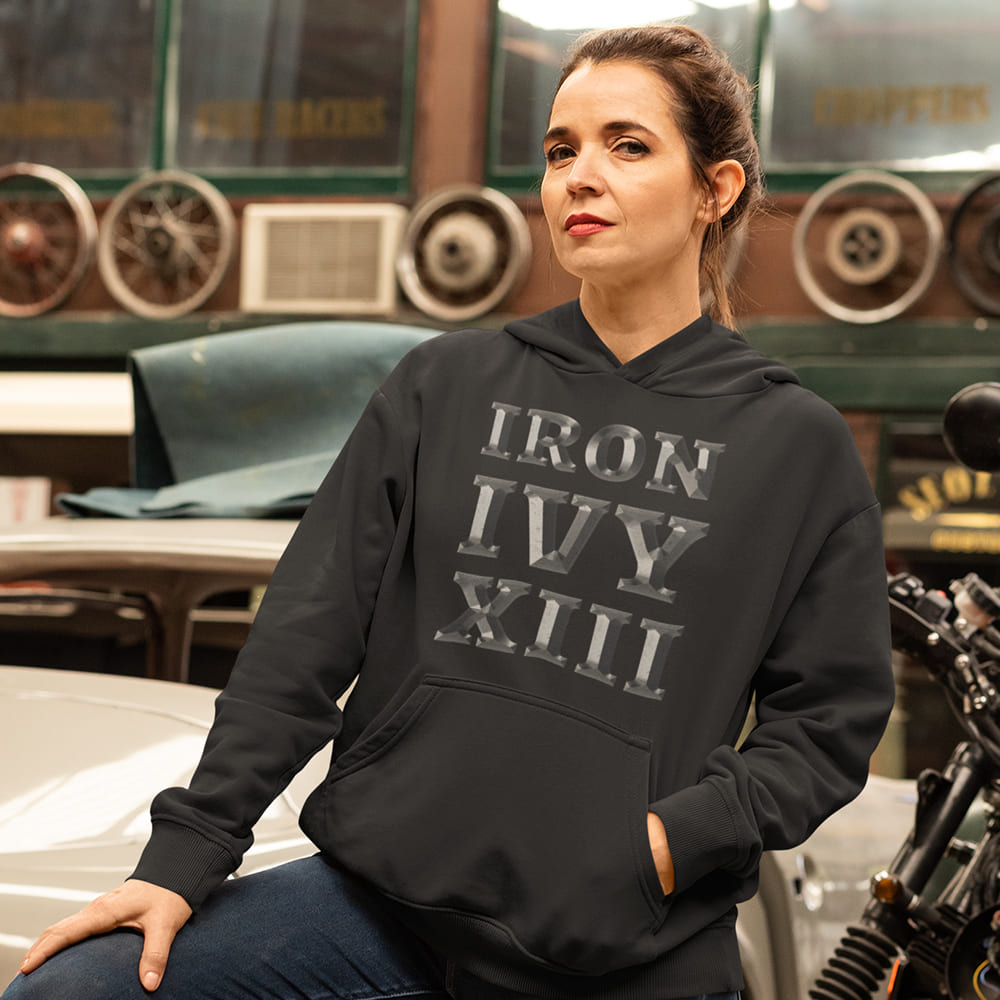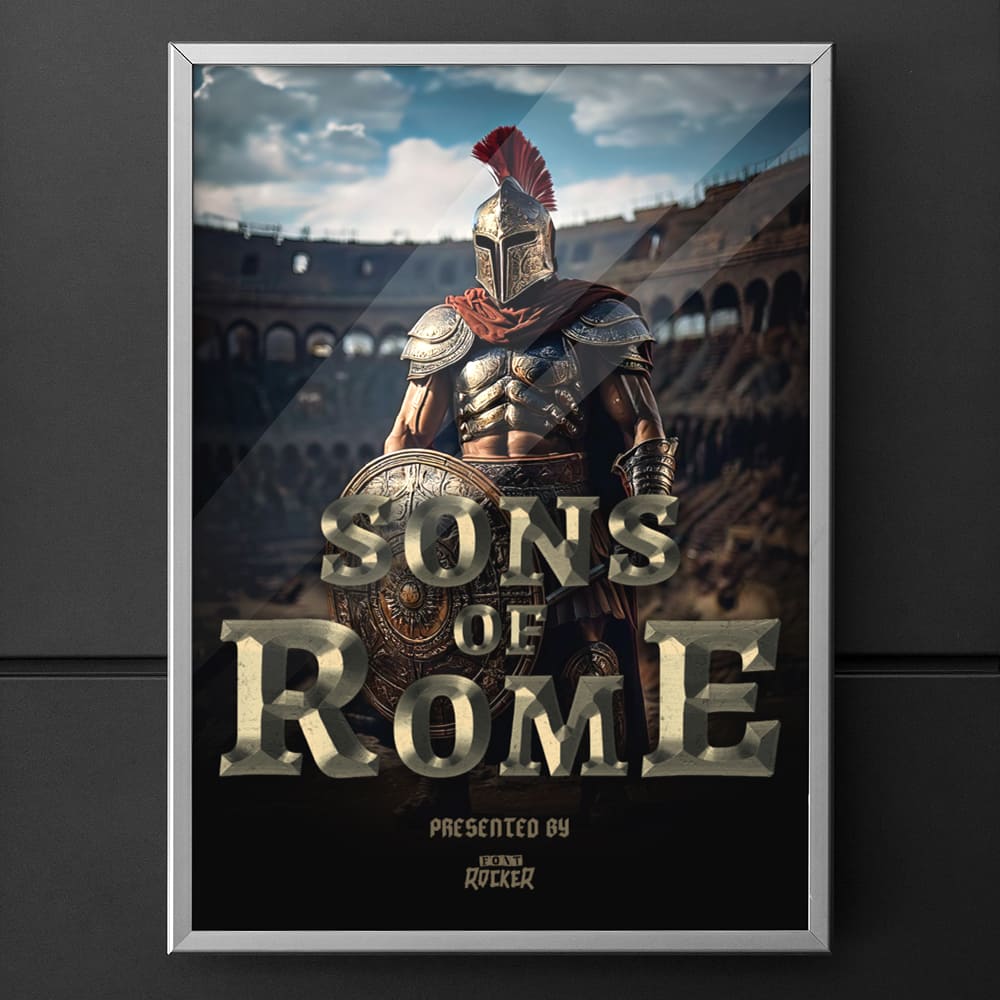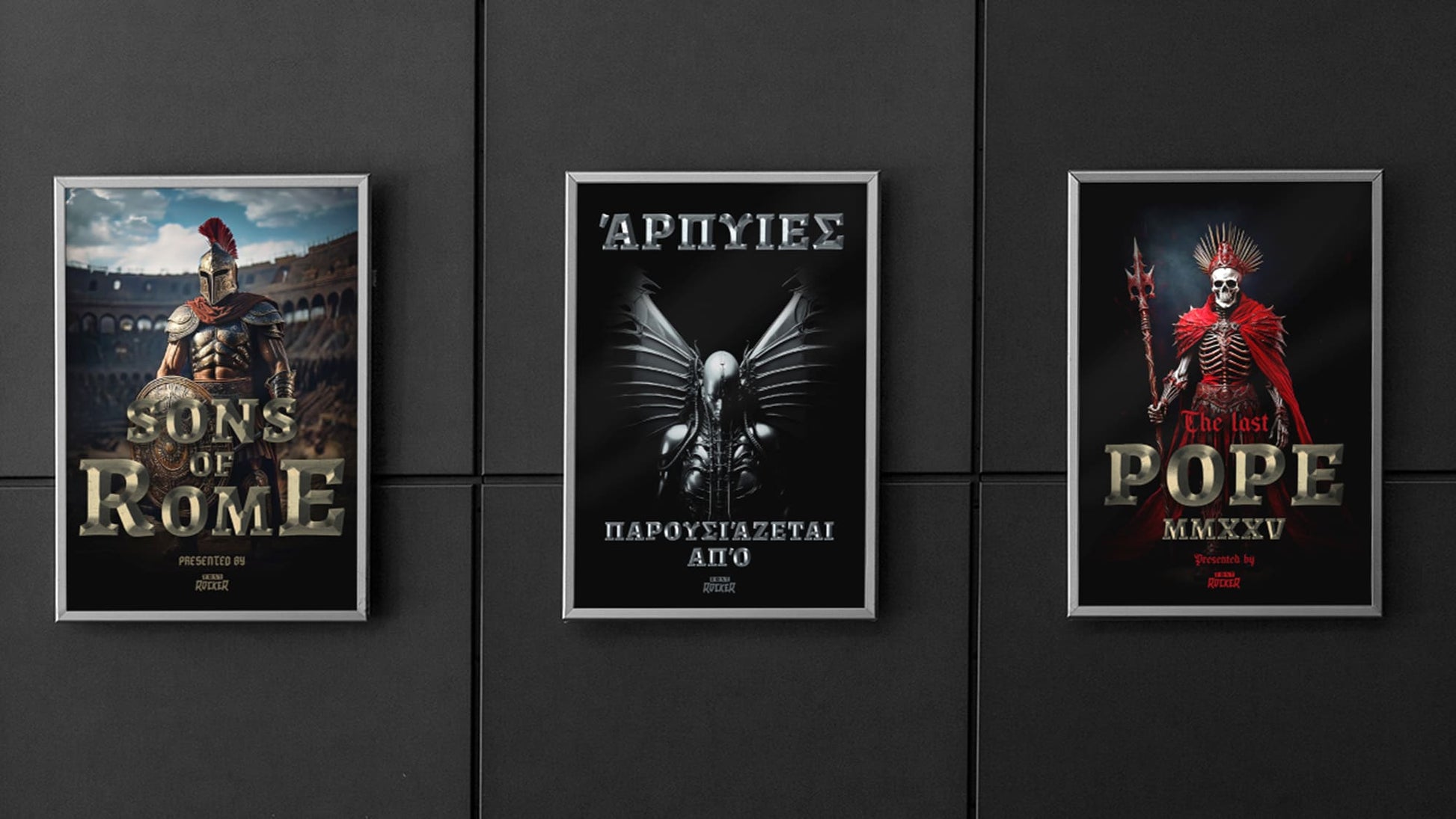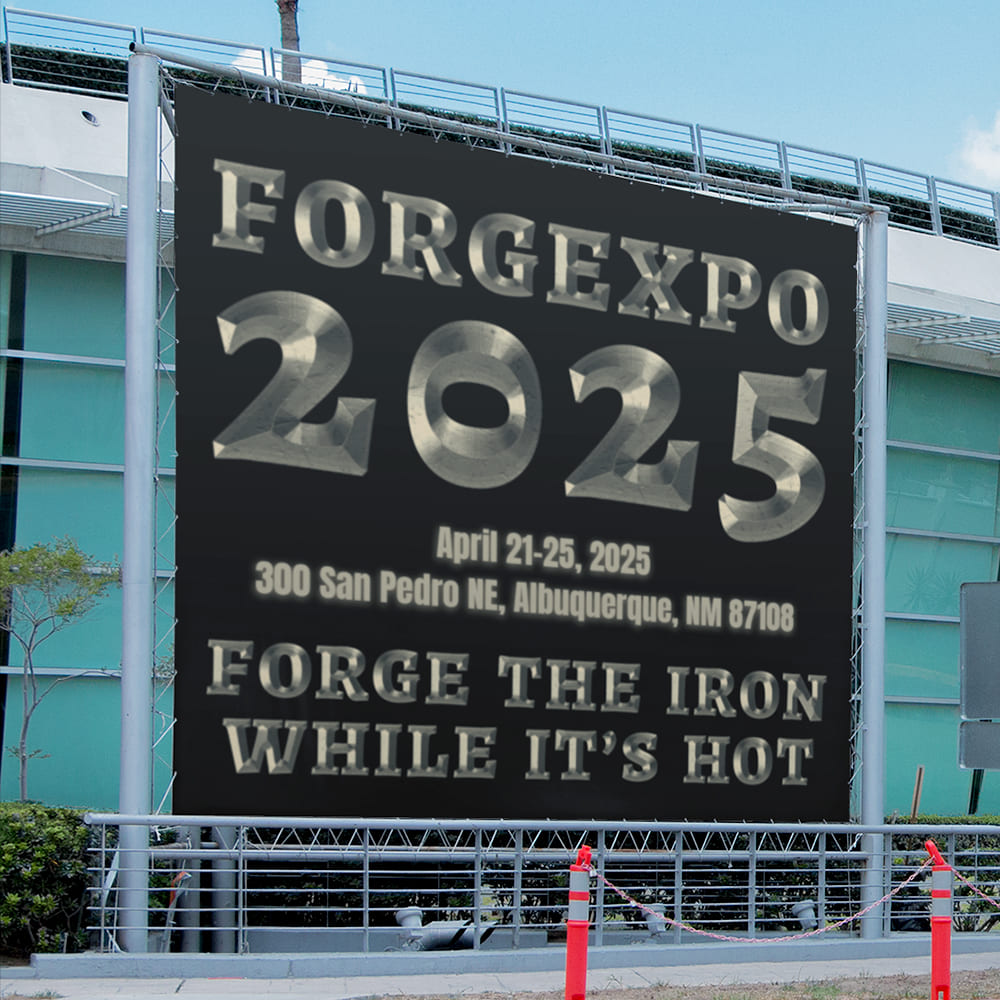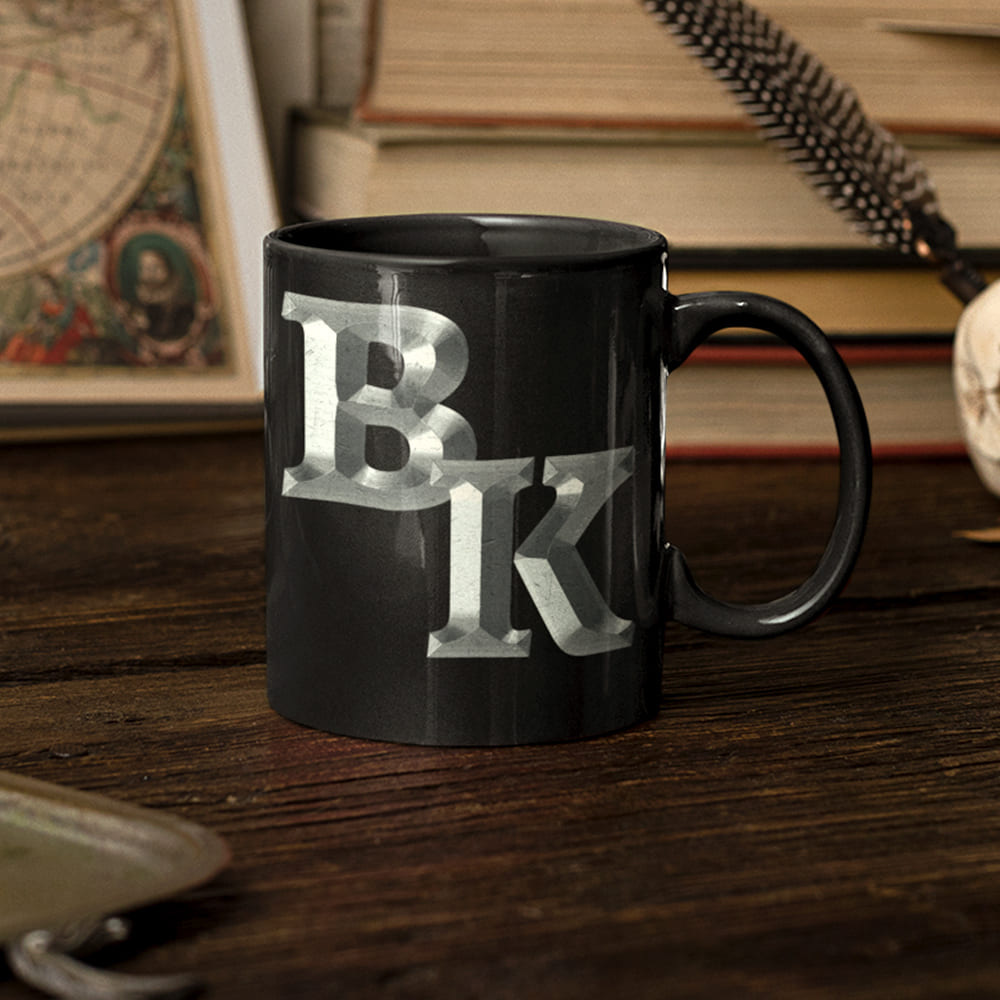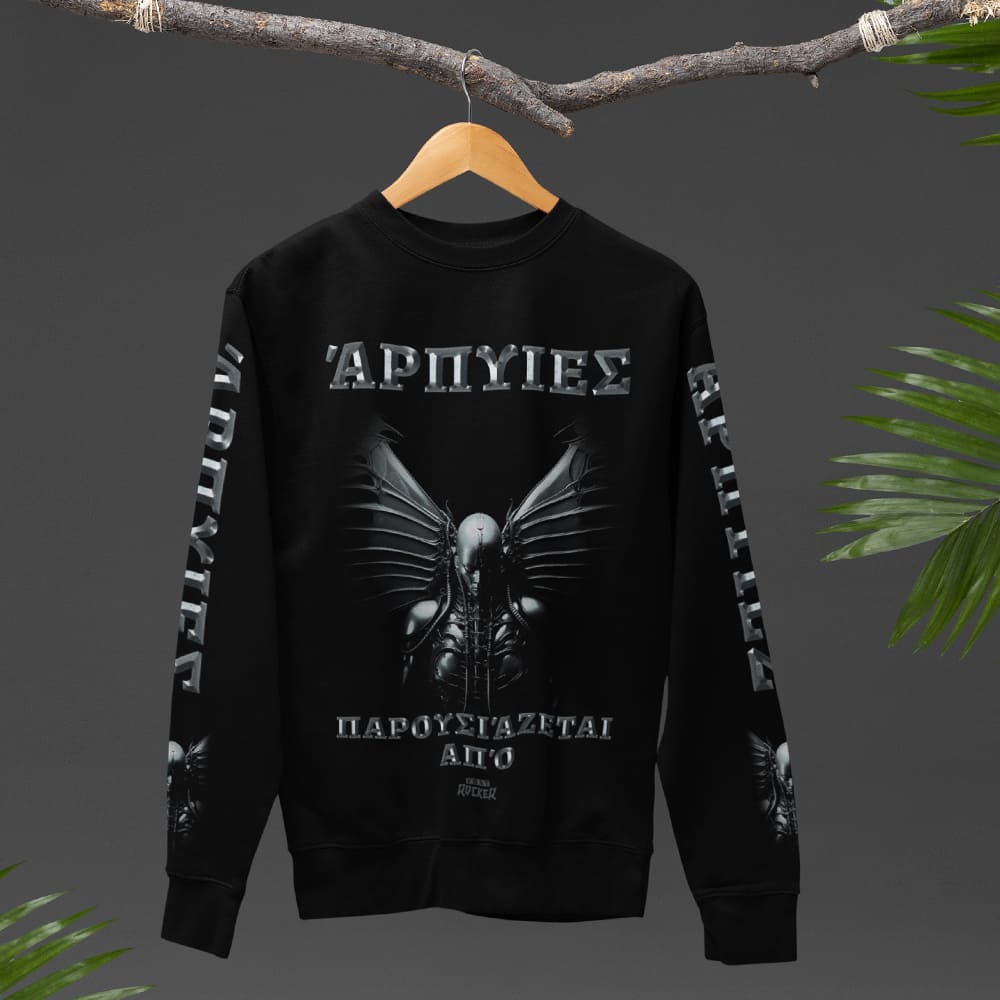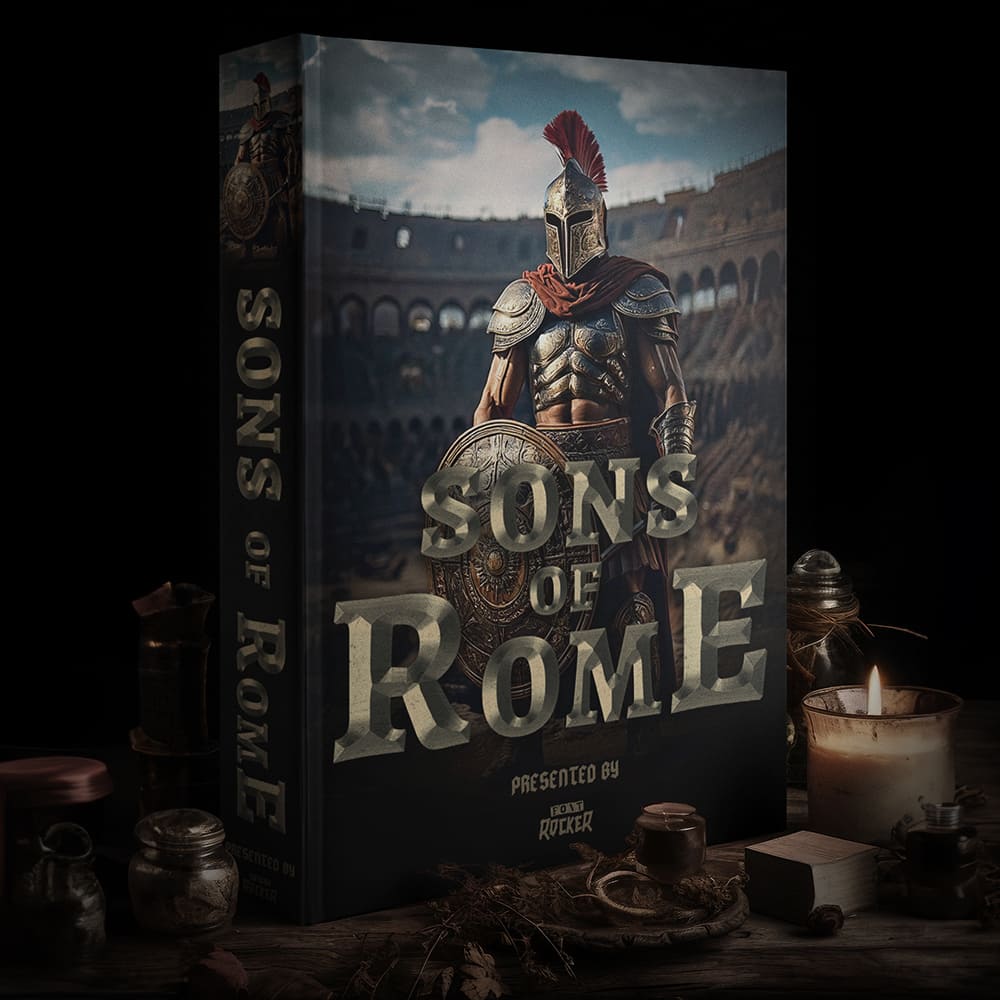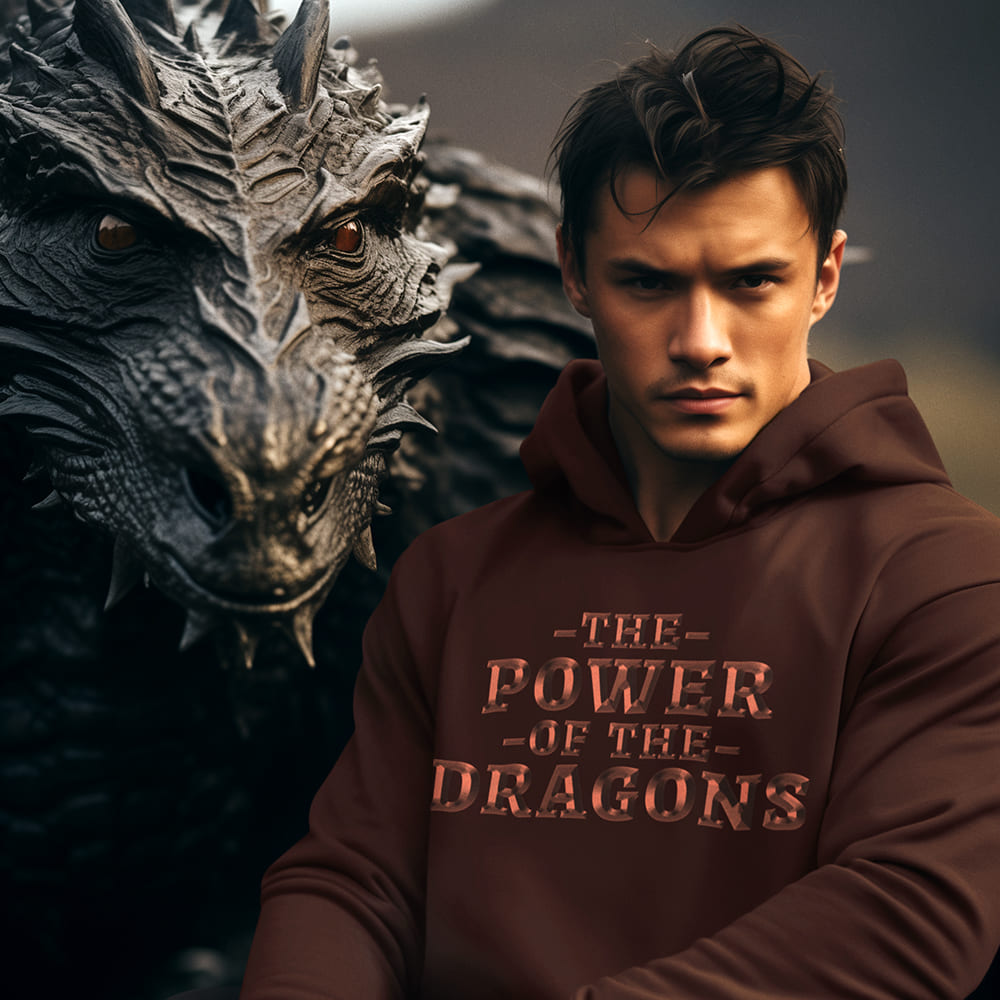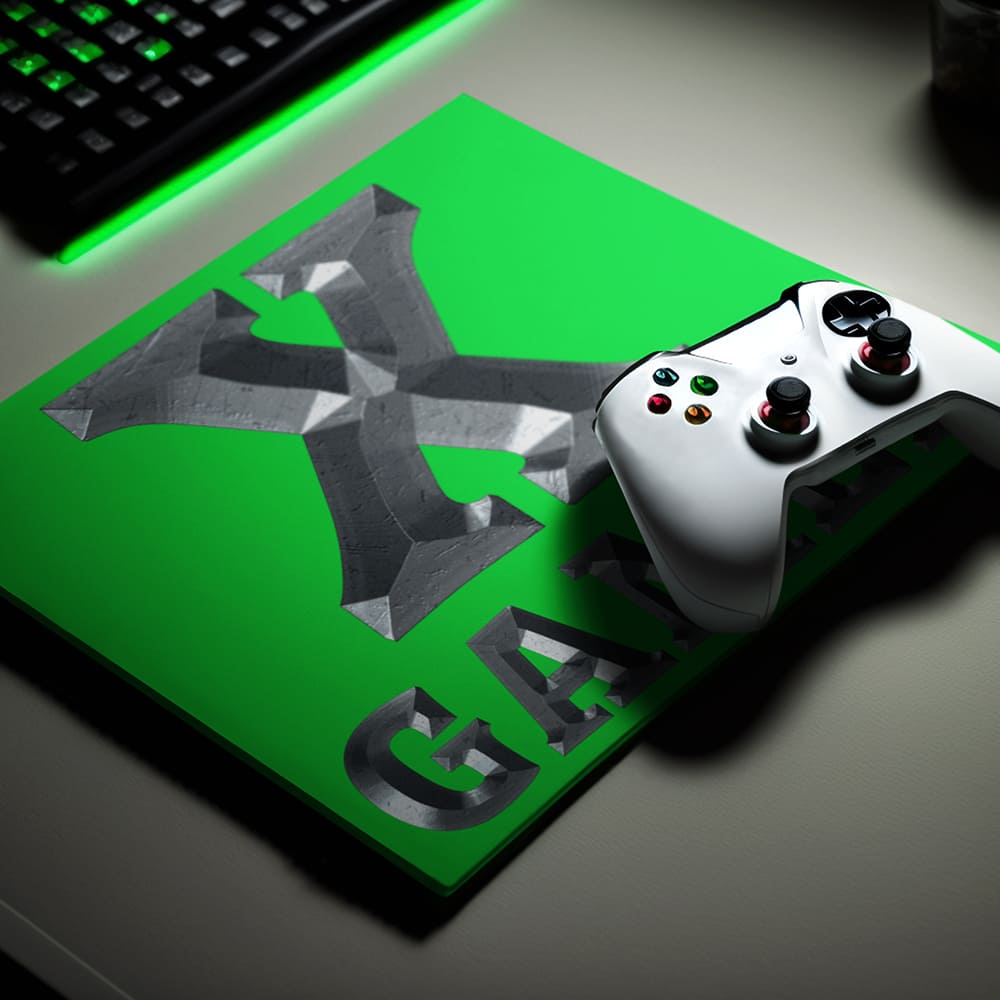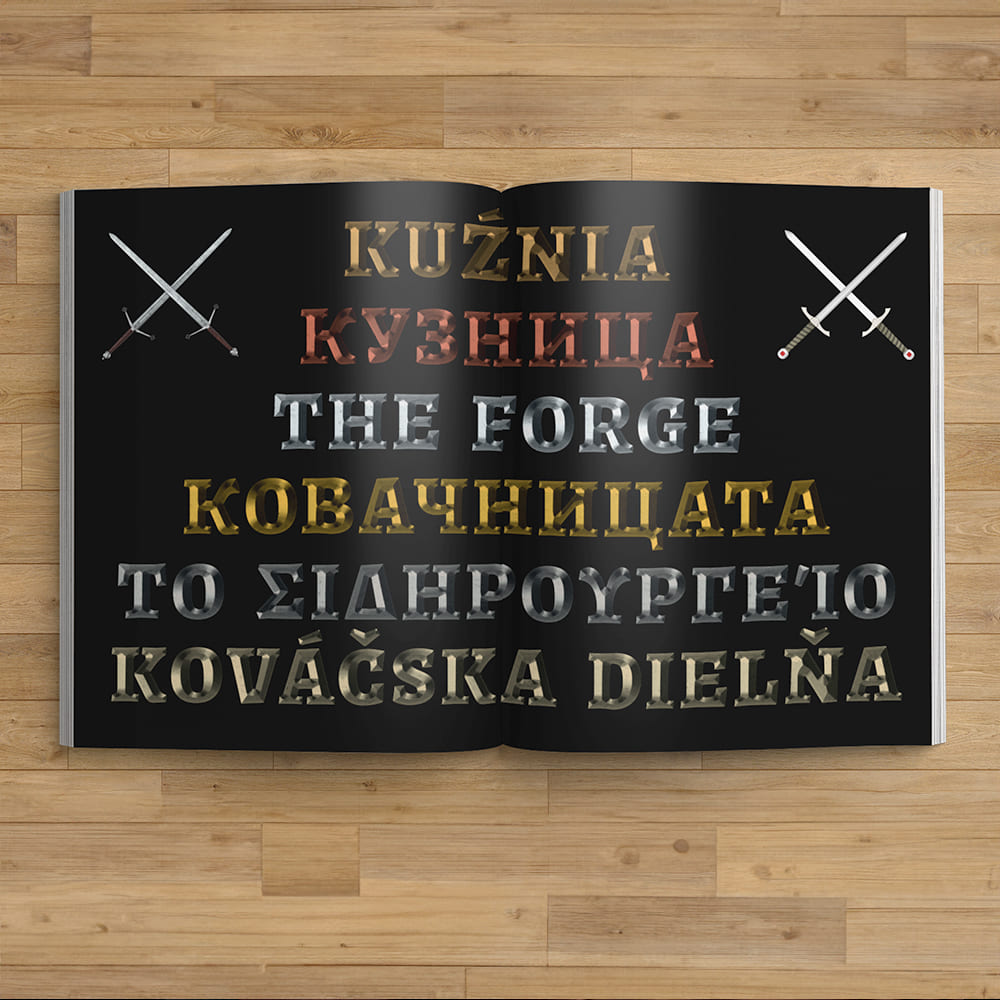
Medieval Font
Majestic, Noble, Timeless π°π‘οΈβοΈ
Welcome to the age of knights, kings, and legends! The Medieval Font transports you straight into a world of glorious tournaments, towering castles, and mysterious scrolls. Inspired by ancient manuscripts, royal crests, and epic tales, this font combines elegance, strength, and a touch of mysticism.
Whether you seek the grandeur of a noble dynasty or the dark allure of a knightly order, this font delivers the true essence of the Middle Ages onto your screen.
Why Choose the Medieval Font?
πΉ Historical & Powerful β Inspired by medieval manuscripts, Gothic cathedrals, and royal insignias.
πΉ Perfect for Epic Designs β Ideal for fantasy novels, medieval festivals, knight tournaments, tavern logos, crests, games, and films with a historical or mystical atmosphere.
πΉ Available in Multiple Colors β Whether in royal gold, refined copper, bold bronze, deep titanium, or radiant platinum, this font adapts seamlessly to your design.
πΉ Timeless Medieval Magic β A font that brings the age of knights, legends, and dragons to life in every project.
π₯Β EVERY FONT ROCKER FONT COMES WITH 325 GLYPHS & SUPPORTS OVER 100+ LANGUAGES WORLDWIDE, INCLUDING CYRILLIC, GREEK & MORE.
Write History with the Power of the Middle Ages!
With the Medieval Font, your text transforms into a royal decree, a secret scroll, or an epic heroβs tale. A font for kings, warriors, and legends.
πΉ Elevate your design. Feel the history. Choose the Medieval Font.